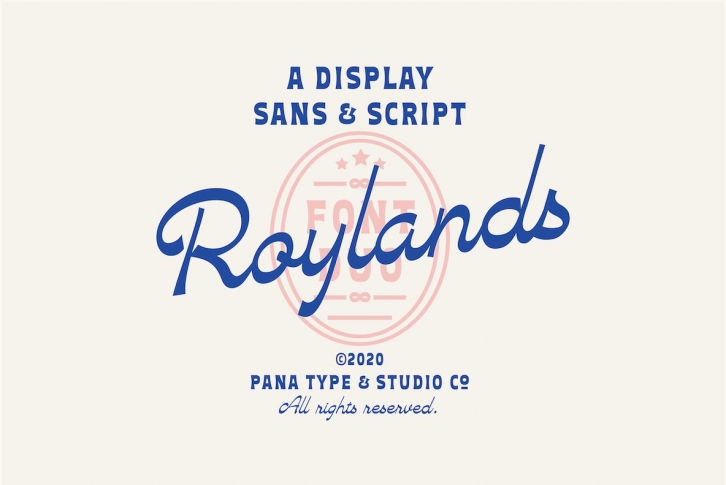
Royland Font Duo is a mathing pair of fonts, inspired by a simple yet elegant vintage graphic design, carefully crafted, and opentype features to support is perfect for graphic design needs.